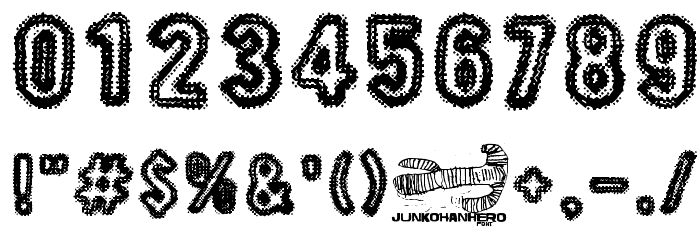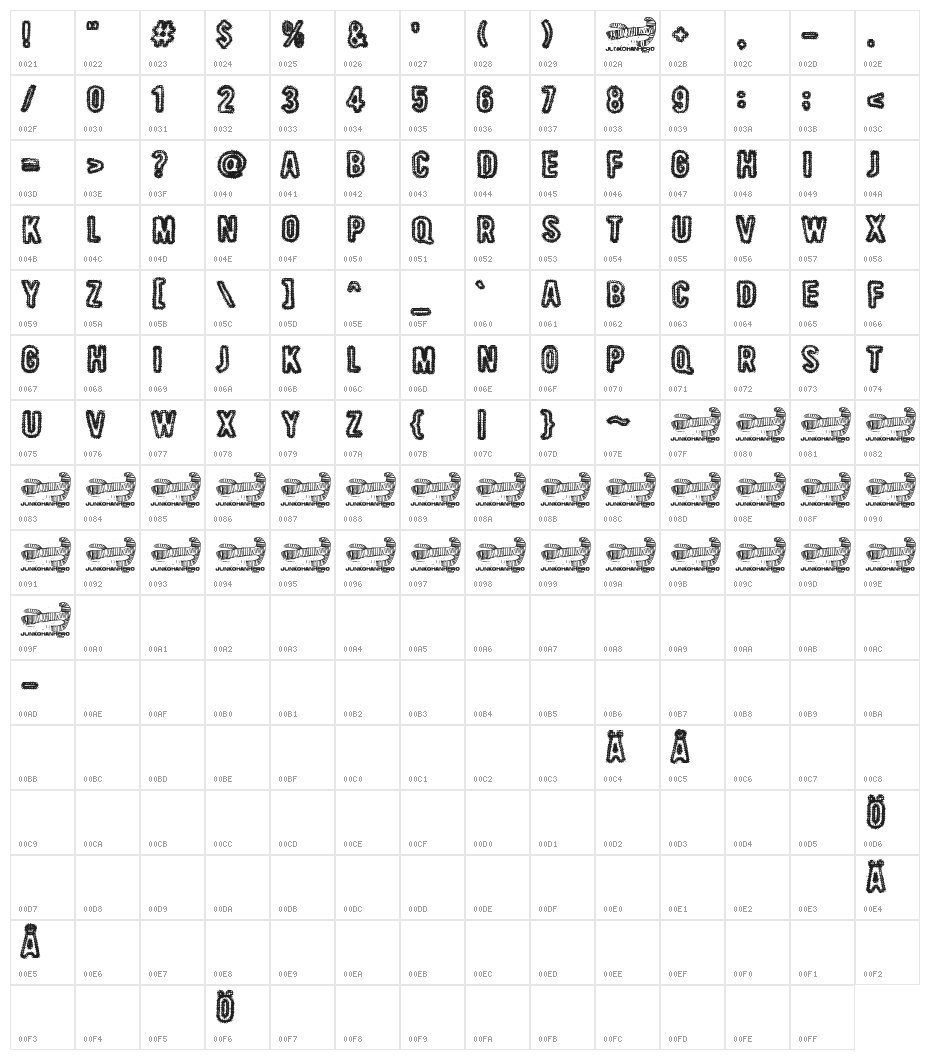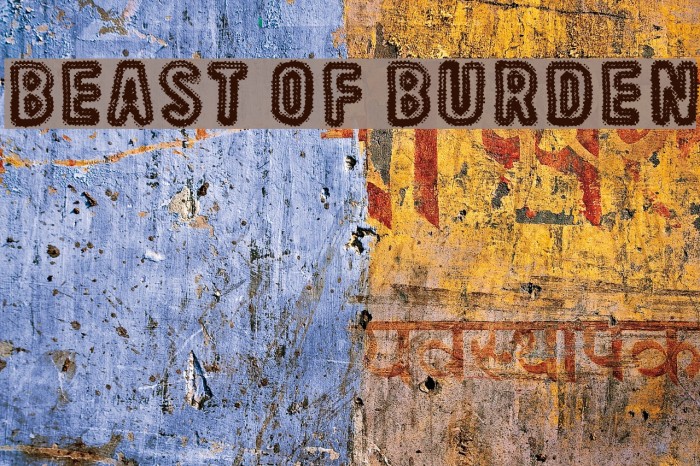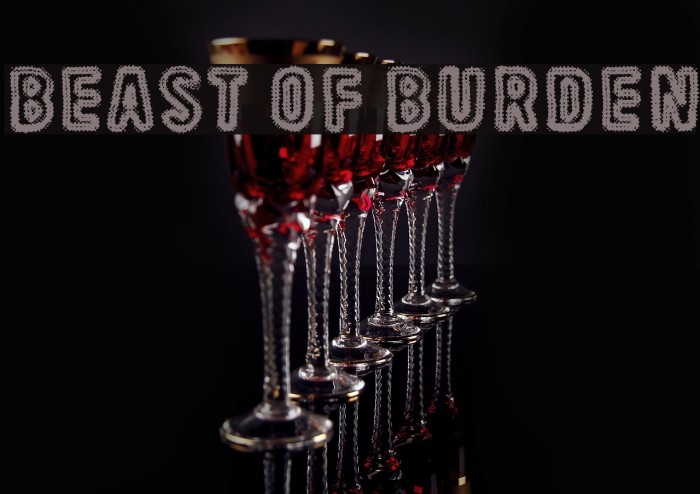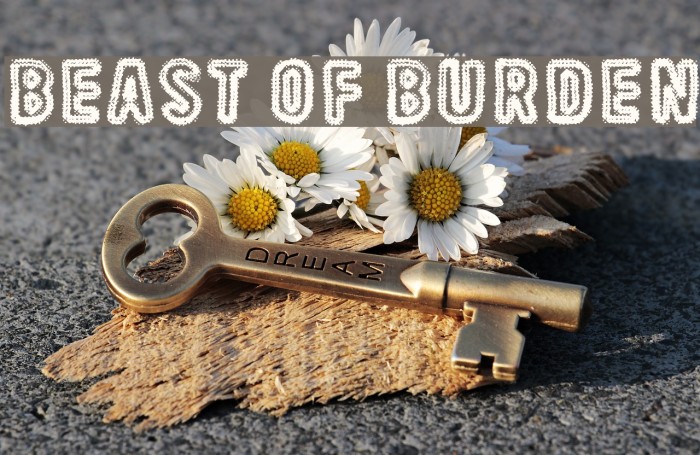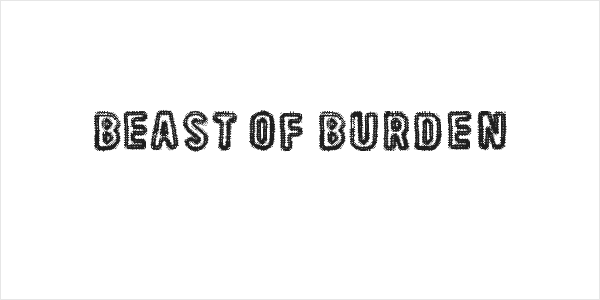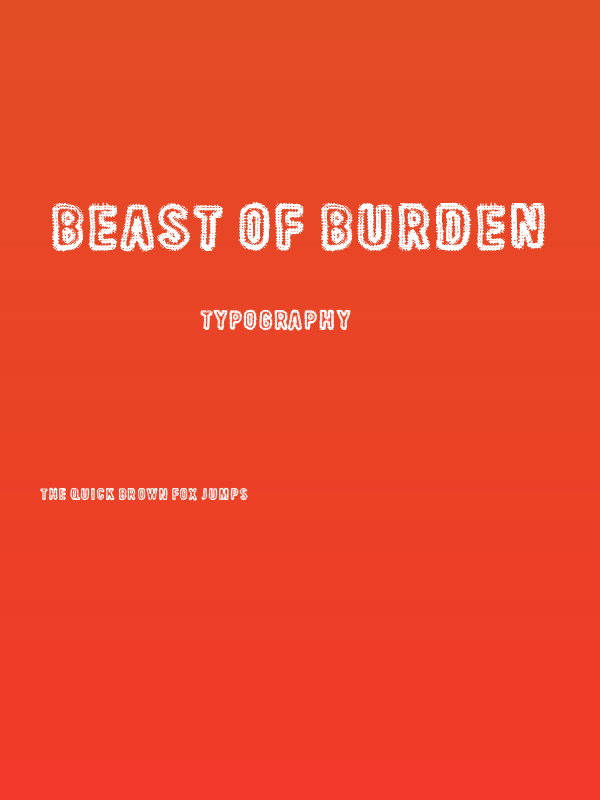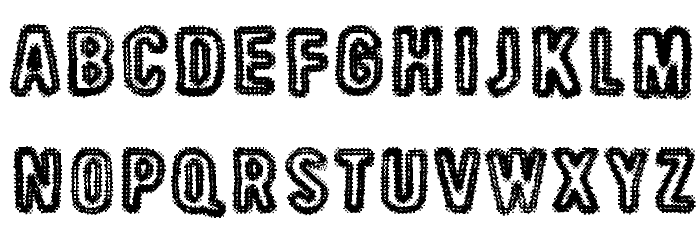
Beast Of Burden Font
Beast Of Burden Description
This font features a bold and playful design with a unique textured appearance. Each character is outlined with a dotted pattern, giving it a dynamic and eye-catching look. The letters are uppercase and lowercase, with numbers and special characters included. The style is reminiscent of hand-drawn or doodle art, making it stand out with its decorative flair. The overall impression is fun and informal, suitable for creative projects that require a touch of whimsy and individuality.